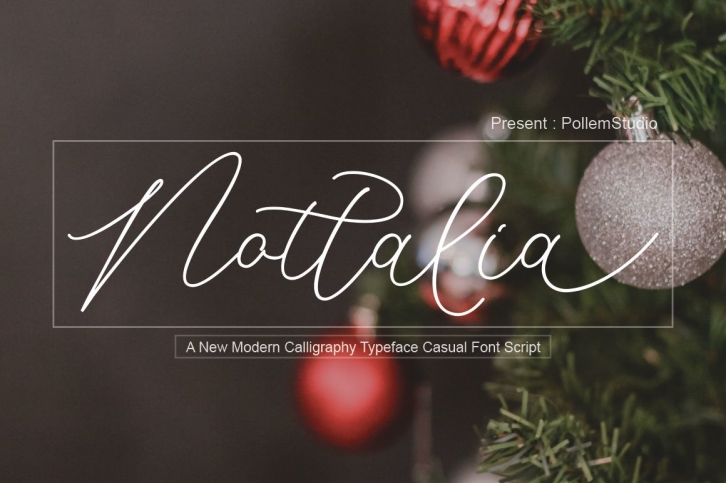
Nottalia I WEB is a trendy and unique font with an authentic style. It was designed by pollem Co and it's a great choice for creative people who need such a font. It was released on November 19, 2020 and the file size is 6.41 MB. Nottalia I WEB will add an organic vibe to any design idea!